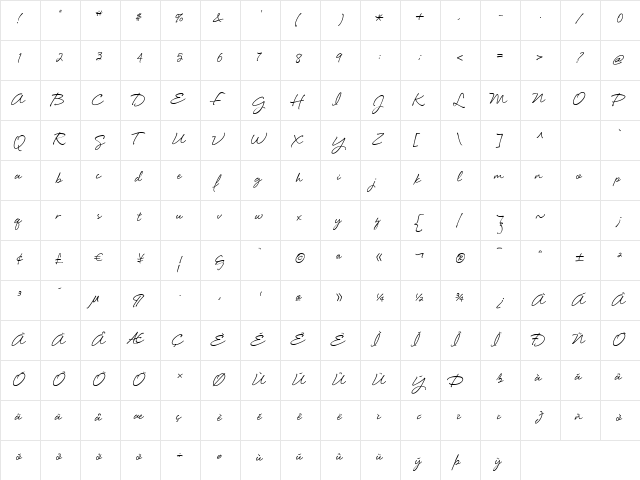
Eye Catching Regular
| Foundry | Jess Latham |
| Designer | Jess Latham |
Design Context for Eye Catching Typeface
Eye Catching is a composed and adaptable typeface that performs quietly and consistently across a wide range of design contexts.